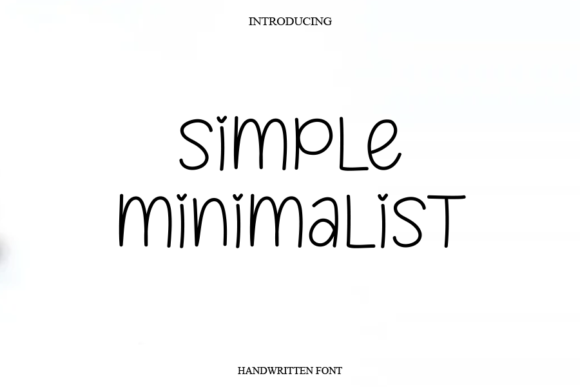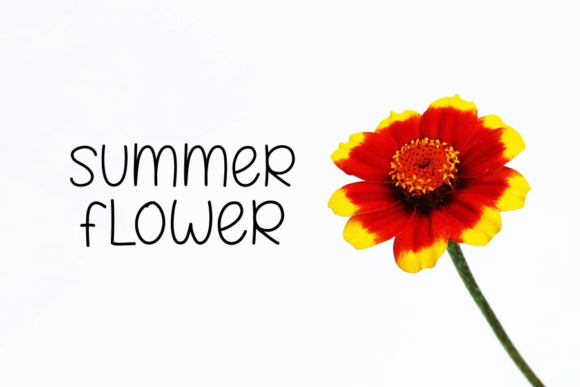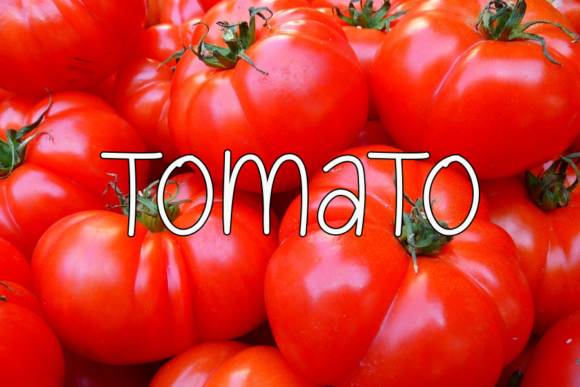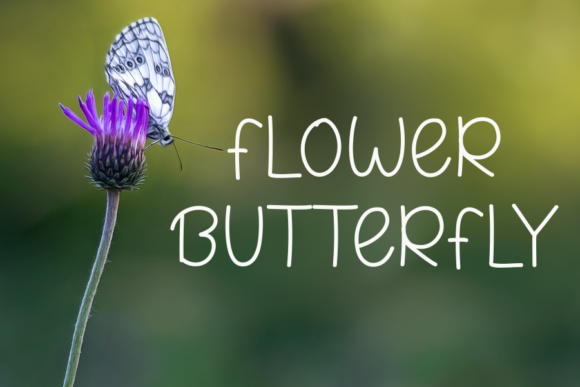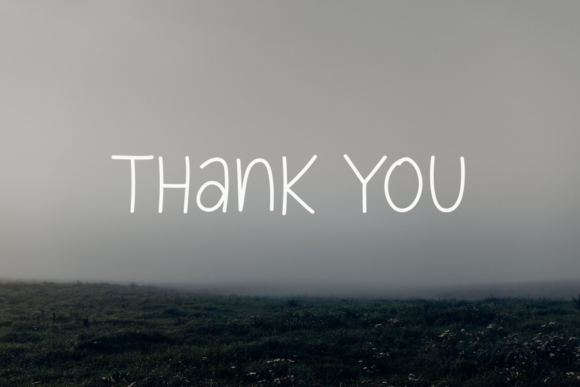
Simple Minimalist Font
About Simple Minimalist Font
Introducing Simple Minimalist, a simple handwritten font that adds a touch of authenticity and realism to your designs. This font is perfect for chalkboard quotes, teaching material, or any other project where you want to create a personal and realistic feel.
Simple Minimalist’s clean and straightforward letterforms set it apart as a font that brings simplicity and clarity to your compositions. Each letter is crafted with precision and simplicity, creating a visually appealing and easy-to-read composition. This minimalist approach adds a sense of authenticity and realism to your designs, making them feel personal and relatable.
The versatility of Simple Minimalist allows it to shine in various design contexts. Whether you’re working on chalkboard quotes, teaching materials, educational posters, or any other creative endeavor, Simple Minimalist adds a touch of simplicity and authenticity. Its handwritten nature creates a genuine and down-to-earth aesthetic that enhances the overall visual appeal.
Simple Minimalist’s simplicity and minimalistic style make it suitable for a wide range of designs. The clean and straightforward look of the letters makes it perfect for adding a personal and realistic feel to your projects. Whether used for creating chalkboard quotes, teaching material, or any other application, Simple Minimalist brings a sense of simplicity and authenticity.
No matter the design context or project, Simple Minimalist has the potential to enhance any creation. Its simple and handwritten style make it suitable for various design projects. Let Simple Minimalist add a touch of authenticity and realism to your designs, creating visually captivating compositions that leave a lasting impression.
In summary, Simple Minimalist is a simple handwritten font that adds a touch of authenticity and realism to your designs. Its clean and straightforward letterforms capture attention while maintaining a simple and minimalist aesthetic. Embrace the versatility of Simple Minimalist and confidently add it to your chalkboard quotes, teaching materials, or other design projects, creating visually captivating compositions that leave a lasting impression.